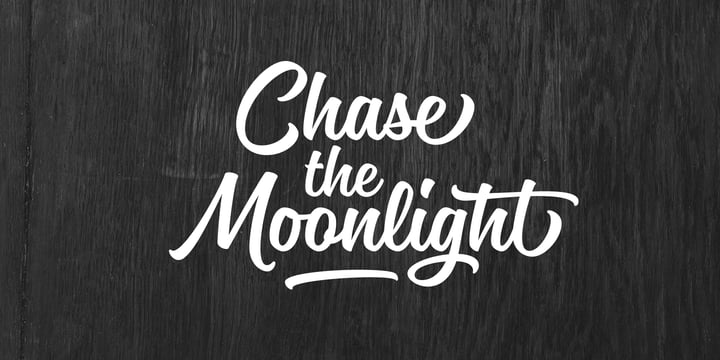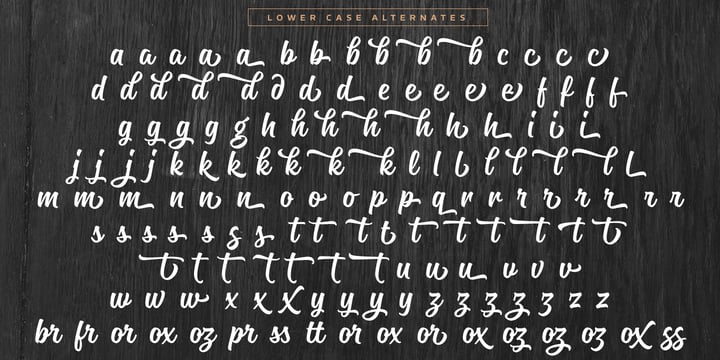
Magneton
von Melvastype
Die Schriftfamilie Magneton wurde von Mika Melvas entworfen und von Melvastype veröffentlicht. Magneton enthält 6 Stile und Familienpaketoptionen.
Magneton is a brush script typeface that contains three weights and two slant angles. Three weights simulates the pressure of the brush pen; light is written with a gentle pressure and the bold one with more pressure. Two slant angles gives Magneton two natures; the more casual one and the more dynamic one. So with this script you have lots of options to choose from. You can adjust the look and feel just like when writing with a real brush pen! Magneton has lots of alternates and swash characters. It has two sets (and more) of upper case letters. The more basic one and the more flamboyant one. It also has lots and lots of lower case alternates: two styles of end swashes, underlines, a few different ascender and descer swashes and much more. Please explore the images and glyhp set to get the idea. I hope you like what you see and use Magneton in logos, lettering compositions, t-shirts etc. there are lots of opportunities with this one. Thank you and please enjoy!
Über Melvastype
“I have always been interested in various forms of hand lettering, graffiti, sign painting and calligraphy,” Mika Melvas said in his Creative Characters interview. “As a kid I was very interested in graffiti. I drew and sketched it in my notebooks, and in art class my favorite tasks were always the ones that included some typographical elements. At some point I found calligraphy. There was something in calligraphy that fascinated me a lot. It is hard and demanding and needs regular training. And it is so pure; you can’t hide your mistakes or take short cuts. It is just forms and whitespace. I’m not a master calligrapher by any means but I like to do it and it makes me a better type designer and lettering artist.” For Mika, type design was a hobby long before it became the primary way he made his living. He began his career as an art director and graphic designer in advertising agencies and experimented with type on the side. Following his passion, Mika worked hard to guide his career towards becoming a full-time type designer and lettering artist. “I worked on my calligraphy and lettering a lot,” he said, “ and practiced vectorizing them. After a long period of hard training I was able to resign from my art director’s post and start my own foundry. I think it’s good to have knowledge and experience of graphic design — it has worked for me at least. It means that you have an understanding how your clients would use your fonts and what kind of expectations they have.” Since he first began selling his designs on MyFonts in 2011, the self-taught type designer has released over a dozen families. His library spans a typographic range from an extra bold slab serif, Ringa, to his more signature style of playful brush script fonts like Paintlay and Ahkio. “I think hand-sketching is a very important thing – at least for me — especially when you are doing a script font. You can’t beat the flow and rhythm one achieves with just pen and paper. I think you can focus better on the bigger picture; composition, flow and style, when doing things with just pen and paper. I easily rush to fine tune the details too early when using just a computer. Type design is a combination of creativity and engineering and that is very interesting to me. You get the best of both worlds.” For more on Mika, check out his website and follow him on Twitter and Instagram.The Premium foundry page can be viewed Here.